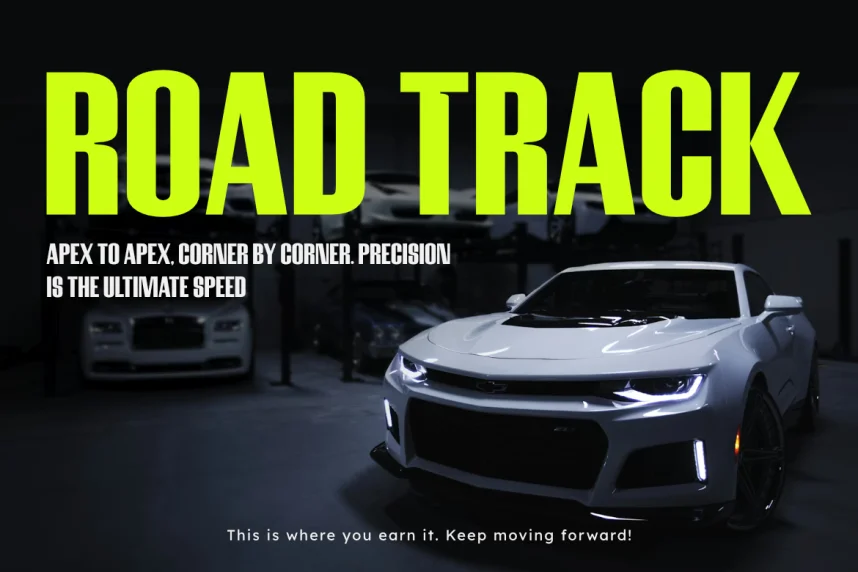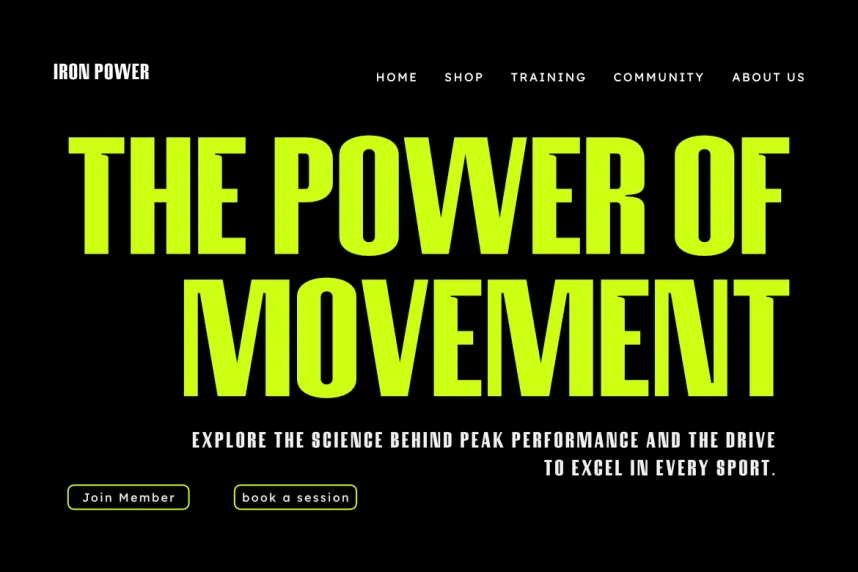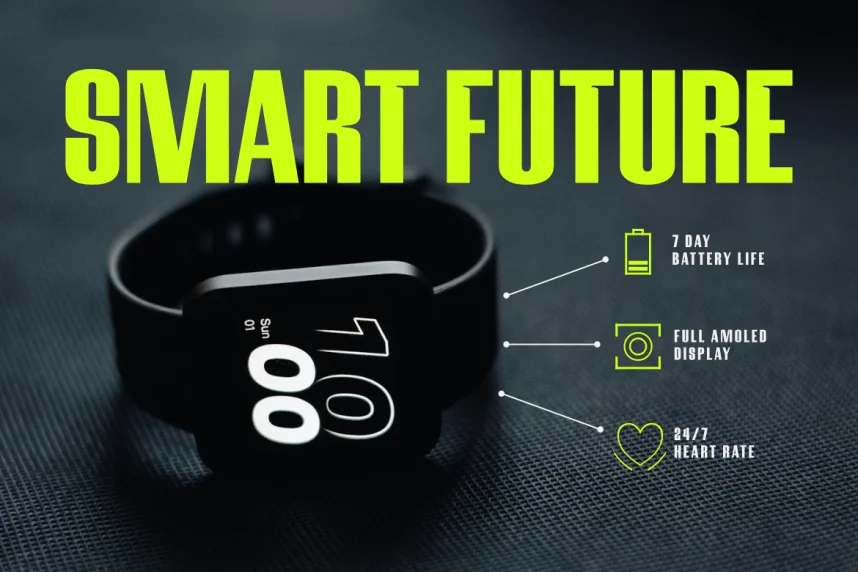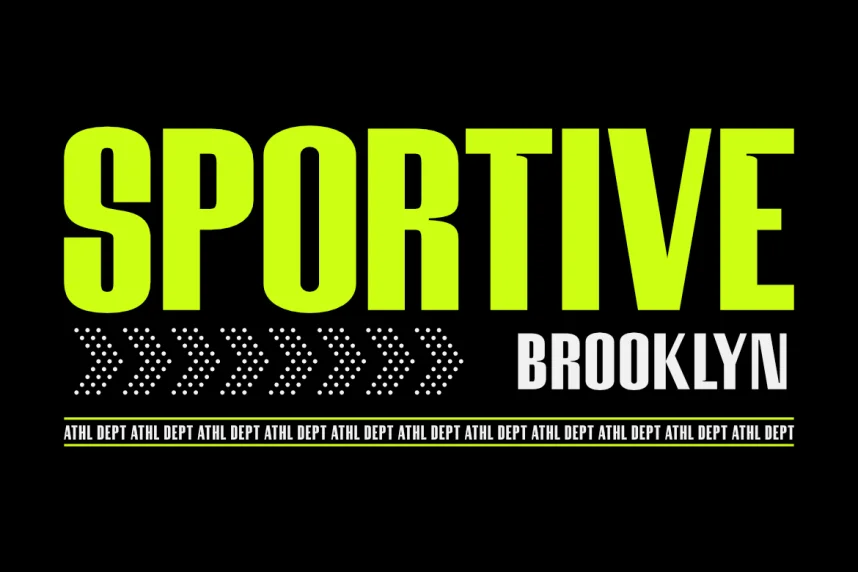
Sporteria Font is a display typeface created to solve visibility and impact issues in sports branding and promotional design. Designers often need strong letterforms that remain clear on jerseys, posters, logos, and social media graphics where fast recognition matters.
Sporteria Font belongs to the display / sports typography category. Its letterforms use thick strokes, sharp edges, and compact spacing that support high contrast and legibility at large sizes. The characters feel structured and solid, making them suitable for competitive, athletic, and energetic themes. The font avoids complex ligatures and decorative details to maintain clarity across print and digital formats.
Common use cases include sports logos, team branding, event posters, merchandise, YouTube thumbnails, and Instagram headlines. Sporteria Font works best for titles and short text, not long paragraphs. Designers often pair it with a neutral sans-serif font such as Roboto or Helvetica for body copy and supporting information.